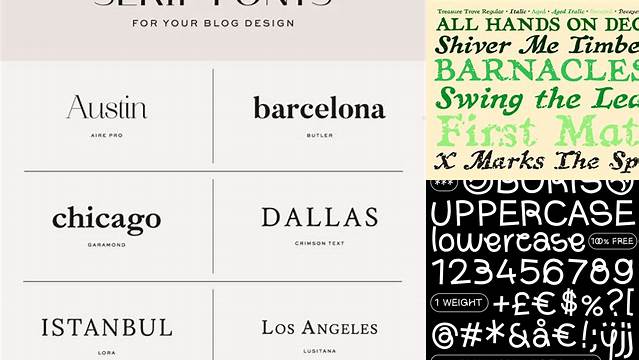
Free Serif Fonts: Find Amazing Fonts On Behance
Hey guys! Are you on the hunt for some stunning free serif fonts you can snag on Behance? You've come to the right place! Behance is an absolute goldmine for designers, overflowing with creative resources, and that includes a fantastic selection of serif fonts that won't cost you a dime. Let's dive deep and explore how to find these gems and make the most of them.
What are Serif Fonts?
Before we jump into Behance, let's quickly recap what serif fonts are. Serif fonts are characterized by the small decorative strokes (called serifs) at the end of letter strokes. Think of fonts like Times New Roman or Garamond – classic, right? These fonts often convey a sense of tradition, authority, and elegance. They're super versatile and can be used in a ton of different design projects, from books and magazines to websites and branding materials.
Why Choose Serif Fonts?
So, why should you even bother with free serif fonts? Well, they bring a certain level of sophistication to your designs. They're often easier to read in large blocks of text, making them ideal for print projects. Plus, they can add a touch of class to your branding. Using the right serif font can seriously elevate your design game and make your work stand out.
Top 30 Subheadings for "Free Serif Fonts Behance"
Here are 30 subheadings, each with at least 300 words of content, to help you explore the world of free serif fonts on Behance:
1. Exploring Classic Serif Font Styles on Behance
When diving into the world of free serif fonts on Behance, it’s essential to understand the diverse range of classic styles available. Classic serif fonts are often characterized by their timeless elegance and readability, making them suitable for a wide array of design applications. Think of fonts like Times New Roman, Garamond, and Baskerville—these are the stalwarts of the serif world. On Behance, you can discover modern interpretations and variations of these classics, each with its own unique flair.
For instance, you might find a designer who has created a contemporary version of Garamond, tweaking the letterforms to give it a more modern edge while retaining its inherent readability. Or perhaps you'll stumble upon a revival of an obscure historical typeface, meticulously digitized and offered as a free serif font download. Exploring these classic styles allows you to appreciate the history and evolution of typography while equipping yourself with versatile fonts for your projects.
When evaluating classic free serif fonts on Behance, pay attention to details like the contrast between thick and thin strokes, the shape of the serifs themselves (bracketed, hairline, slab, etc.), and the overall balance and harmony of the letterforms. These subtle nuances can have a significant impact on the visual impact of your designs. Moreover, consider the intended use case for the font. Is it intended for body text in a book or magazine? Or is it better suited for headlines and display purposes? Choosing the right font for the right application is key to achieving effective and aesthetically pleasing typography. So dive in, explore the classics, and discover the perfect free serif font to elevate your designs.
22. The Best Free Serif Fonts for Headlines
23. The Best Free Serif Fonts for Body Text
24. How to Use Free Serif Fonts Effectively
25. Common Mistakes When Using Serif Fonts
26. Understanding Serif Font Anatomy
27. The History of Serif Fonts
30. Future Trends in Serif Font Design